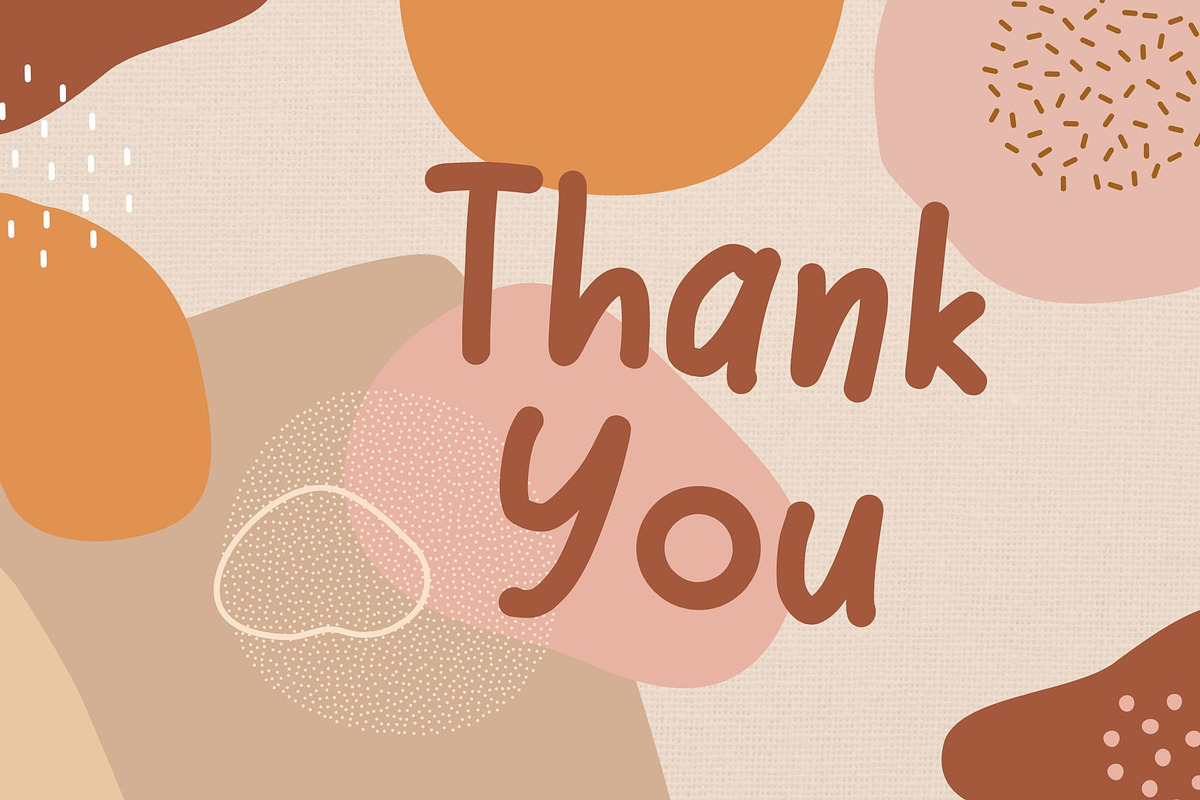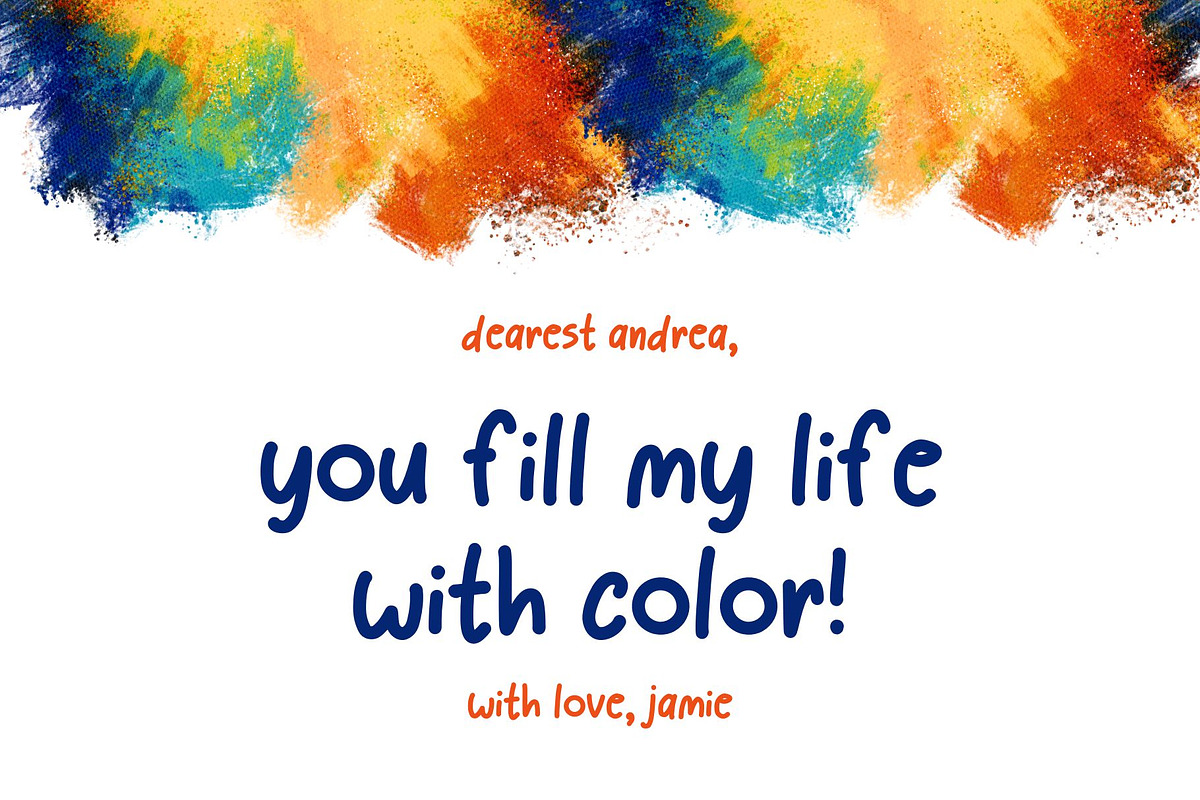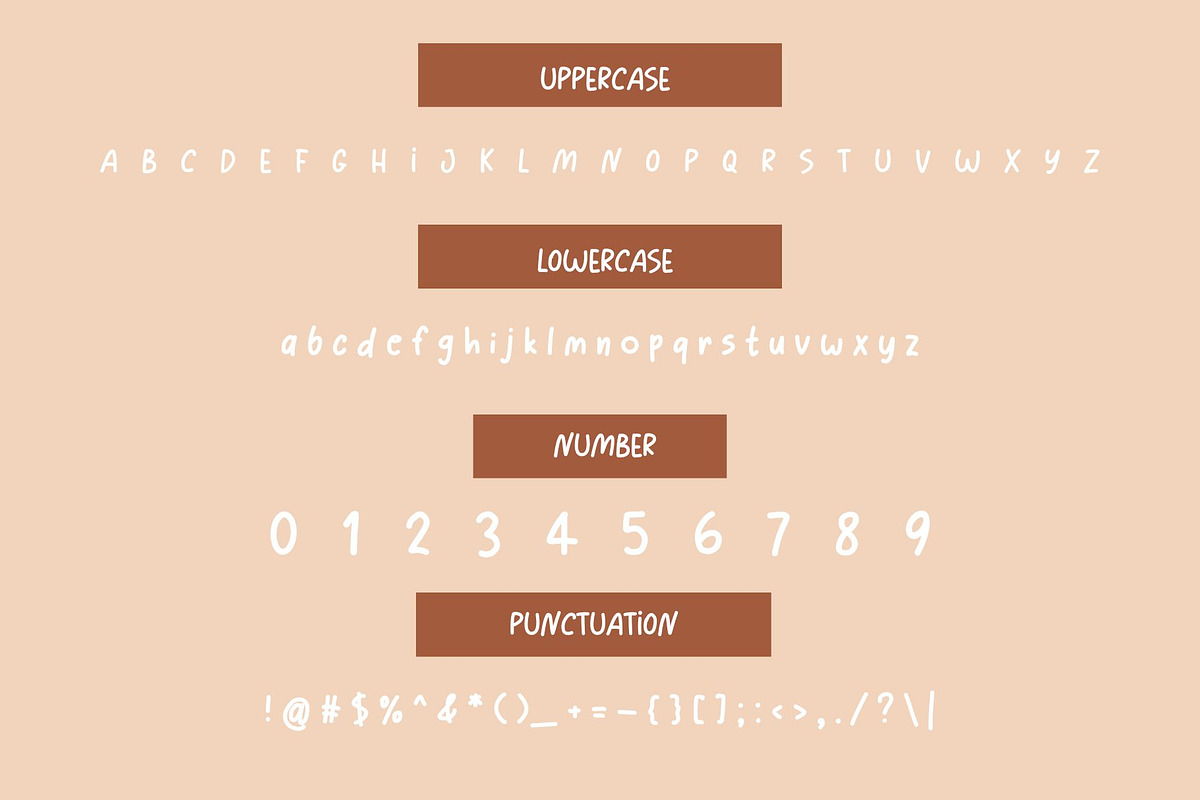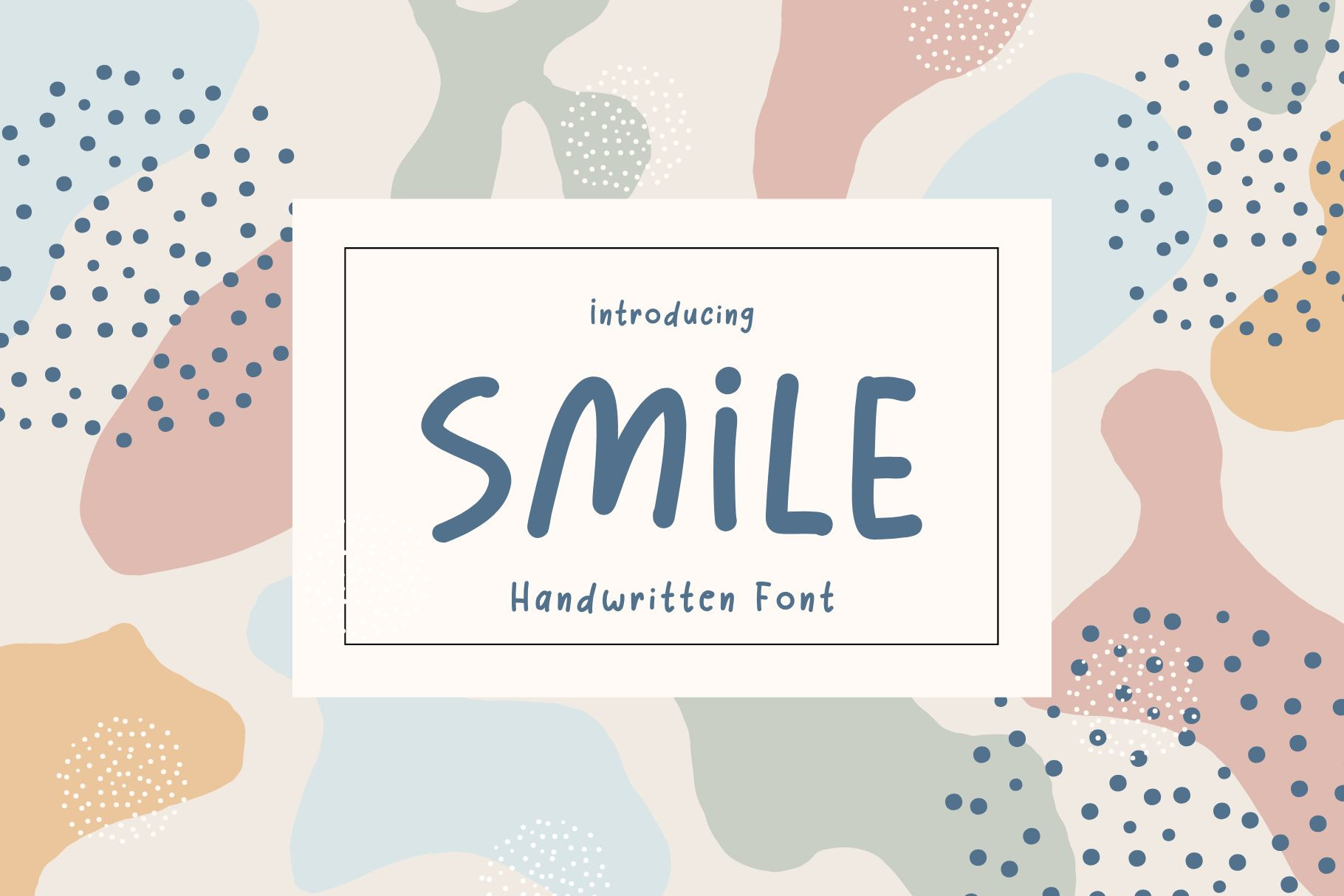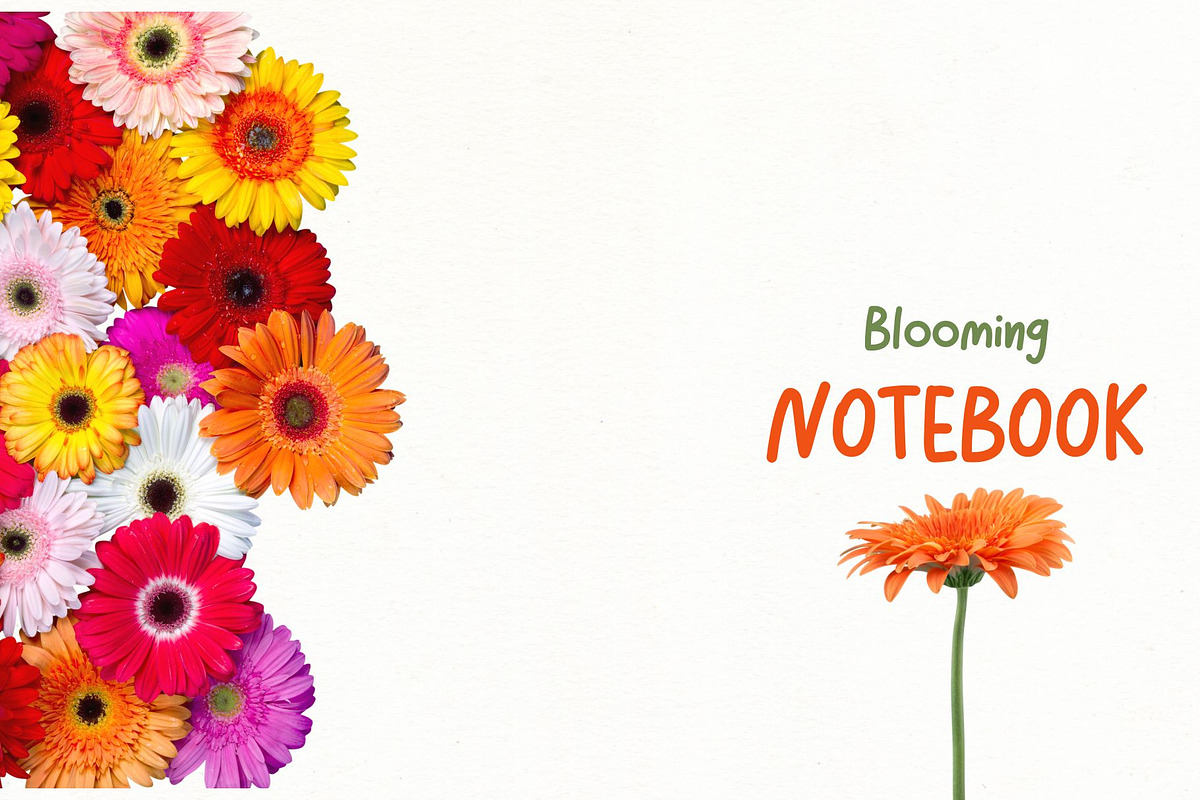
Smile - handwritten font
Smile is a cute notebook handwritten font. It embodies playfulness and authenticity and is the perfect choice for all your favorite projects such as blog posts, logos, branding, ads, invitations, greeting cards, planners, photo albums, decorations, and much more. Add it to any of your designs, and enjoy the results!